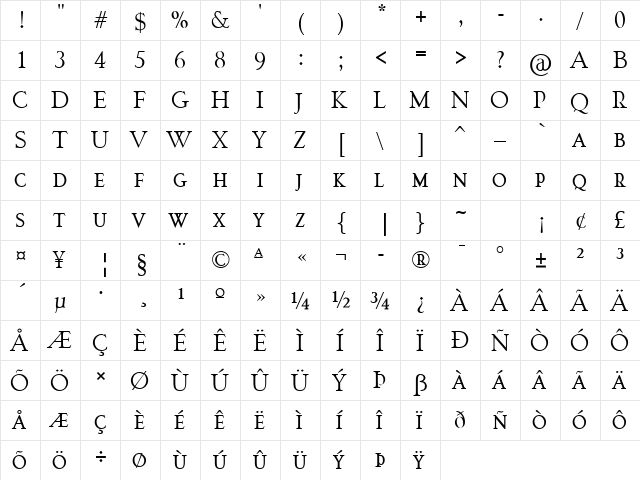
Garava Small Caps Regular
| Foundry | Association for Insight Meditation |
| Designer | Bhikkhu Pesala |
Design Context for Garava Small Caps Typeface
Garava Small Caps offers clean, dependable letterforms without strong stylistic allegiance, making it a practical choice for designers who need flexibility.